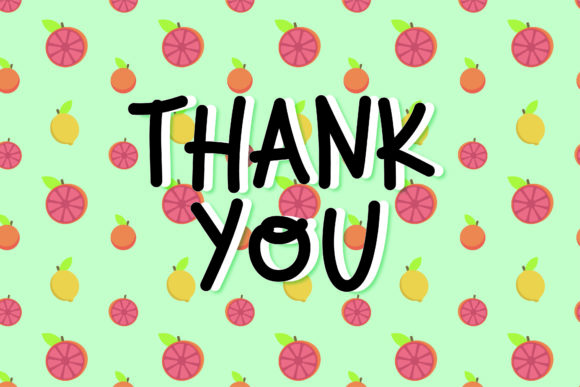
The Perfect Blend of Creativity and Friendliness: Grape Fruit Font
Have you ever been rummaging through your design files, searching for the perfect font to give your project that extra oomph? You know, that moment when you stumble upon a font that just clicks with your vision, and suddenly everything falls into place? For many designers, that moment is what makes all the hard work worth it.
Enter Grape Fruit Font, a charming display font that embodies the perfect balance of friendliness and creativity. Designed to add a touch of whimsy to any project, Grape Fruit Font is the ideal choice for crafts, digital design, presentations, and even greeting cards. Its versatility makes it a valuable addition to any designer’s toolkit, and its effortless charm is sure to win over even the toughest of critics.
Grape Fruit Font Key Features
- Font Family: Grape Fruit Font is a unique, modern sans-serif typeface designed for digital use.
- Unique Characteristics: Features a distinctive blend of geometric and organic shapes, resulting in a modern and stylish appearance.
- Character Set: Includes a comprehensive set of characters, including Latin, Cyrillic, and Greek alphabets, as well as punctuation and symbols.
Grape Fruit Font Review
Overall, I think the Grape Fruit Font has a lot of potential, but it also has some areas for improvement.
- ✨ Unique style: Grape Fruit Font has a distinctive and eye-catching design that’s perfect for brands looking to stand out from the crowd.
- ✨ Versatile: This font is suitable for a wide range of applications, from packaging to digital design, making it a great addition to any design library.
- ✨ Easy to read: Despite its playful and whimsical nature, Grape Fruit Font is surprisingly easy to read, even in smaller font sizes.
- ⚠️ Limited language support: Unfortunately, Grape Fruit Font only supports a limited number of languages, which may be a concern for designers working on international projects.
- ⚠️ Kerning issues: I’ve noticed some kerning issues with certain letter combinations, which can affect the overall readability of the font.
Overall, I would recommend Grape Fruit Font to designers who are looking for a unique and versatile font for their projects. However, it’s essential to be aware of its limitations, particularly the limited language support and kerning issues.
Tips: Use Grape Fruit Font for headings and titles to add a touch of whimsy to your design. Experiment with different font sizes and colors to create visual interest.
Tips: Use Grape Fruit Font for creative typography projects, such as illustrations and graphics. Experiment with layer blending modes and effects to enhance the font’s unique characteristics.
Tips: Use Grape Fruit Font for presentations and reports to add a touch of personality. Experiment with different font sizes and colors to create visual interest.
Grape Fruit Font is ideal for:
- Creative typography projects
- Designing whimsical and playful materials
- Adding a touch of personality to presentations and reports
What is the recommended line height for Grape Fruit Font?
The recommended line height for Grape Fruit Font is 1.2-1.5 times the font size. This will provide optimal readability and balance. However, you can adjust the line height to suit your specific design needs.